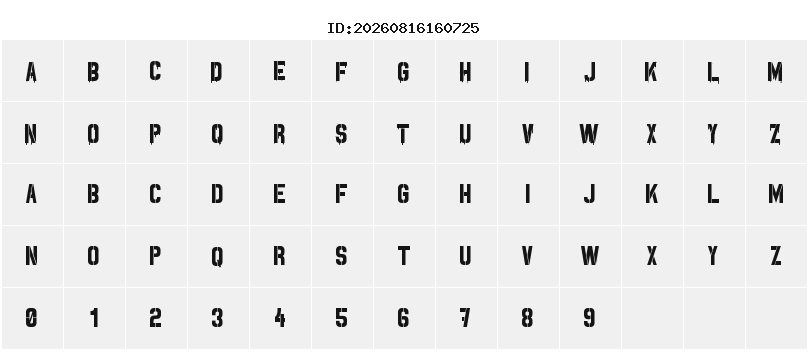
Spray.ME Preview
• Font Name: Spray.ME
• Font ID: FontStruct Spray.ME
• Full Font Name: Spray.ME Regular
• PostScript Name: Spray.ME
• Character Count: 87
• Copyright: Copyright Michał “Neoqueto” Nowak 2012
• Designer: Michał “Neoqueto” Nowak
• Description: ‚ÄúSpray.ME‚Äù was built with FontStruct
About Spray.ME.ttf
Spray.ME.ttf is a modern, elegant sans-serif font designed for ultimate readability and visual harmony. Perfect for branding, headlines, web design, and print materials.